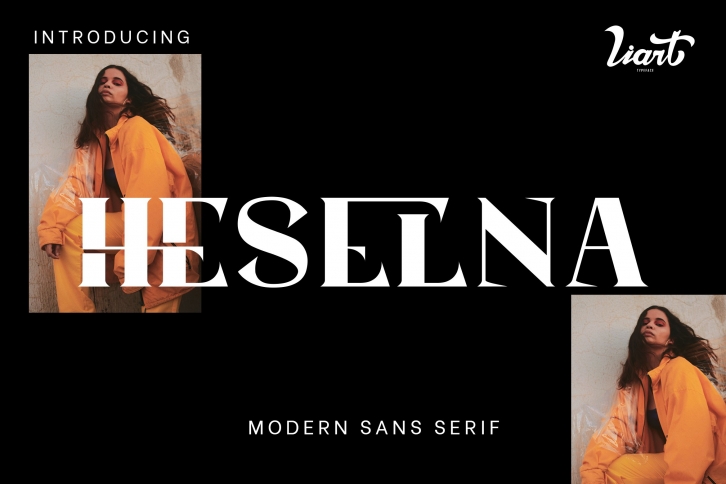
Heselna is a beautiful font that was designed by liart3535. It's a great choice for designers and creatives who need such a font. It was released on January 22, 2022 and the file size is 21.76 MB. Heselna may give a more youthful, expressive and casual look to your project. It is a very beautiful, refined, elegant, and high-quality font.